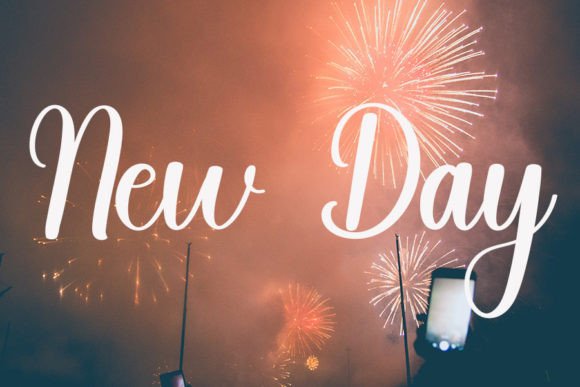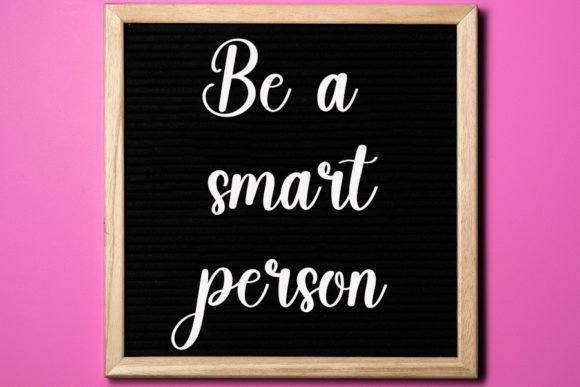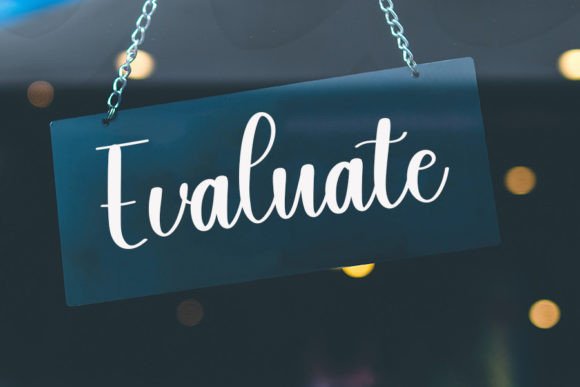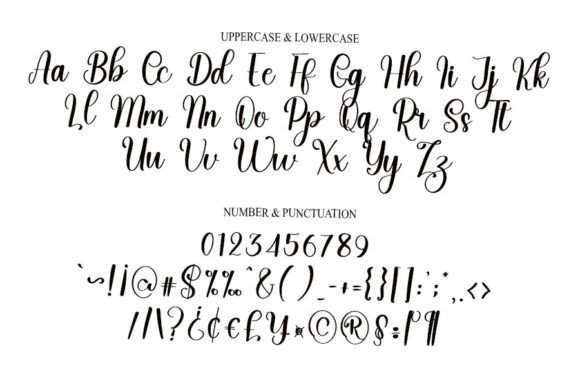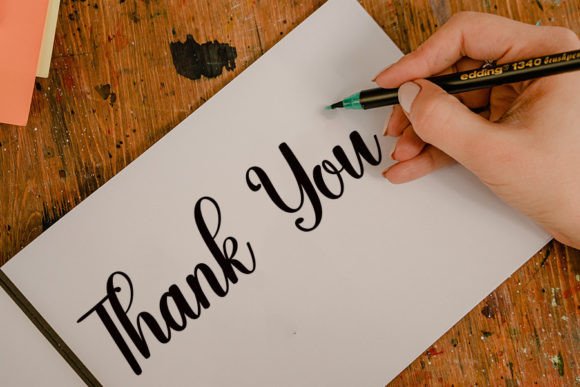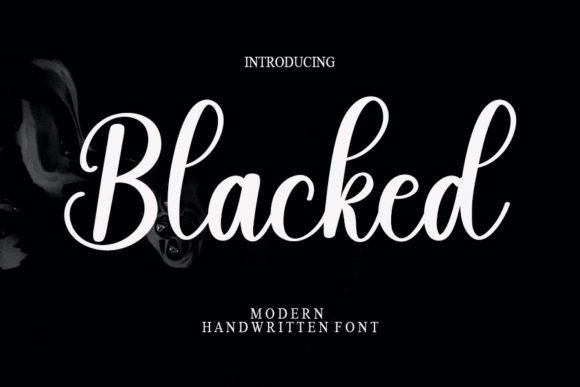
The Ultimate Guide to Blacked Font: Elevate Your Designs with this Versatile Script Font
I’ll never forget the time I was working on a wedding invitation project, and I just couldn’t find the perfect font to match the couple’s elegant yet playful vibe. I scrolled through pages of font options, but nothing seemed quite right. That’s when I stumbled upon Blacked Font, and it was love at first sight! ✨ In this article, I’ll share my experience with this beautiful script font, its features, and how to make the most of it in your designs.
An Honest Review of Blacked Font
So, what makes Blacked Font so special? Here are the things I love:
• ✅ Versatility: Blacked Font is incredibly versatile, making it perfect for a wide range of design projects, from wedding invitations to social media posts.
• ✨ Elegant yet playful: This font has a unique balance of elegance and playfulness, making it ideal for designs that need a touch of sophistication with a dash of whimsy.
• 💬 Easy to read: Despite its script nature, Blacked Font is surprisingly easy to read, even at smaller font sizes.
• 🎨 Highly customizable: With its range of OpenType features, glyphs, and stylistic alternates, you can customize Blacked Font to fit your design needs.
Of course, no font is perfect, and Blacked Font has a few small quirks:
• ⚠️ Limited use in very formal designs: While Blacked Font is elegant, it may not be the best choice for very formal designs, such as corporate logos or government documents.
• 🤔 Some letters may require adjustment: Depending on the word or phrase, some letters may require manual adjustment to ensure optimal spacing and alignment.
The Story Behind Blacked Font
Blacked Font was designed with the goal of creating a versatile script font that’s both elegant and playful. The designer wanted to create a font that would be perfect for a wide range of design projects, from wedding invitations to social media posts. With its unique balance of sophistication and whimsy, Blacked Font has become a popular choice among designers and crafters.
What is Blacked Font? Blacked Font is a casual and relaxed script font that’s perfect for a wide range of design projects.